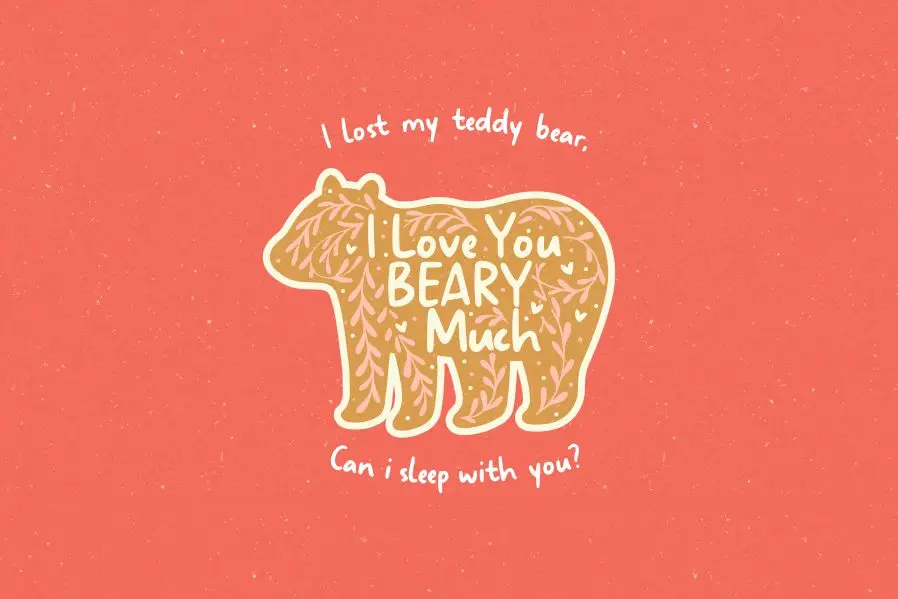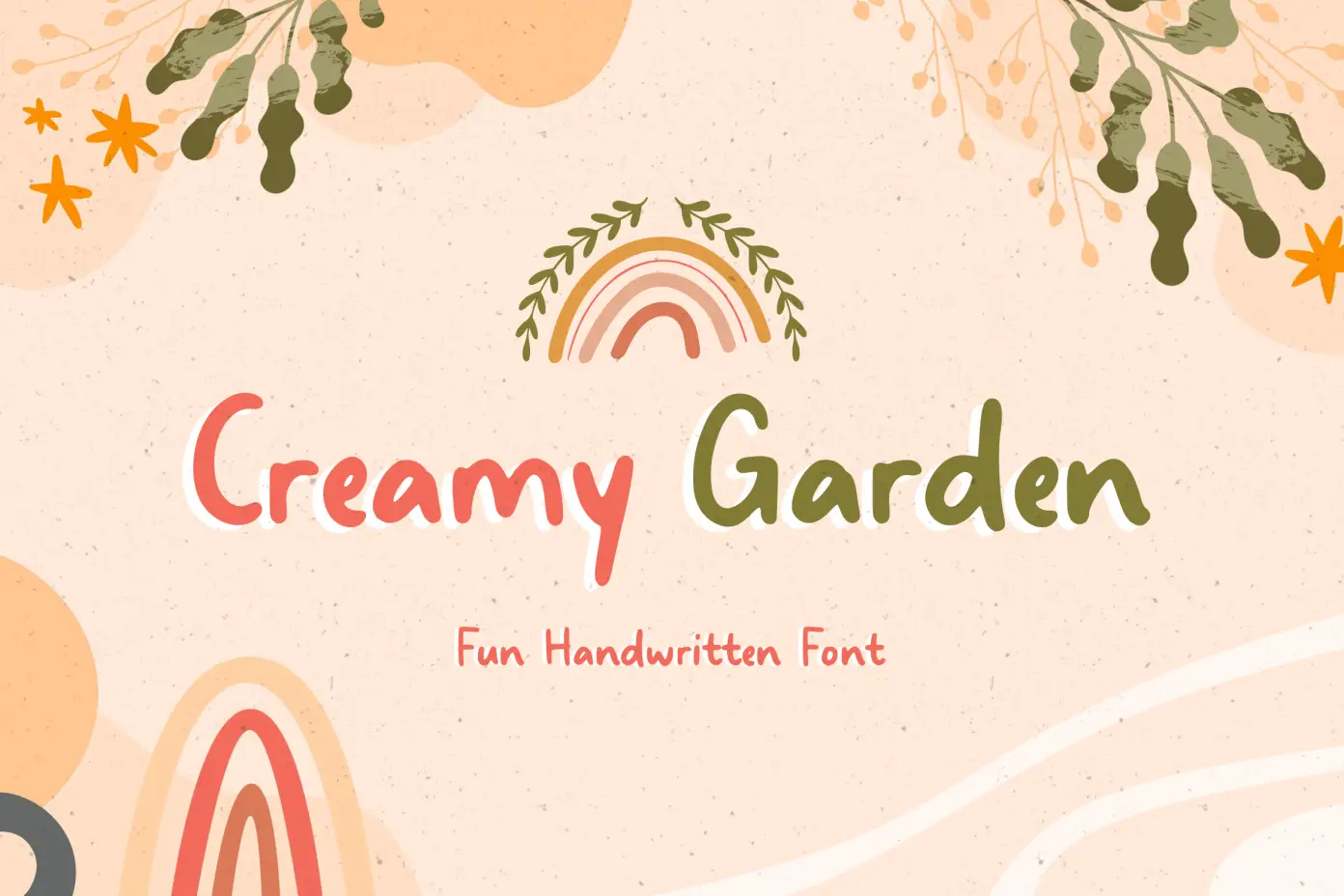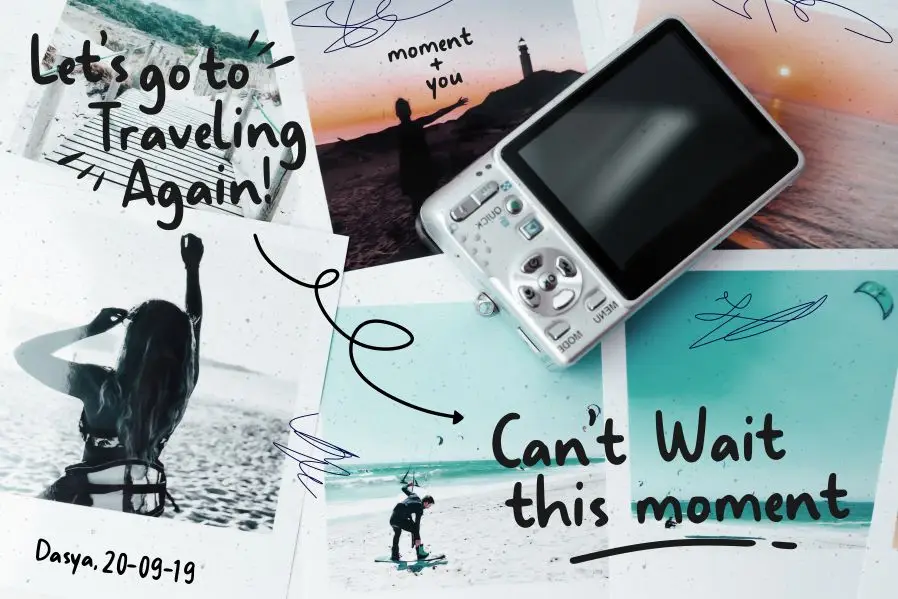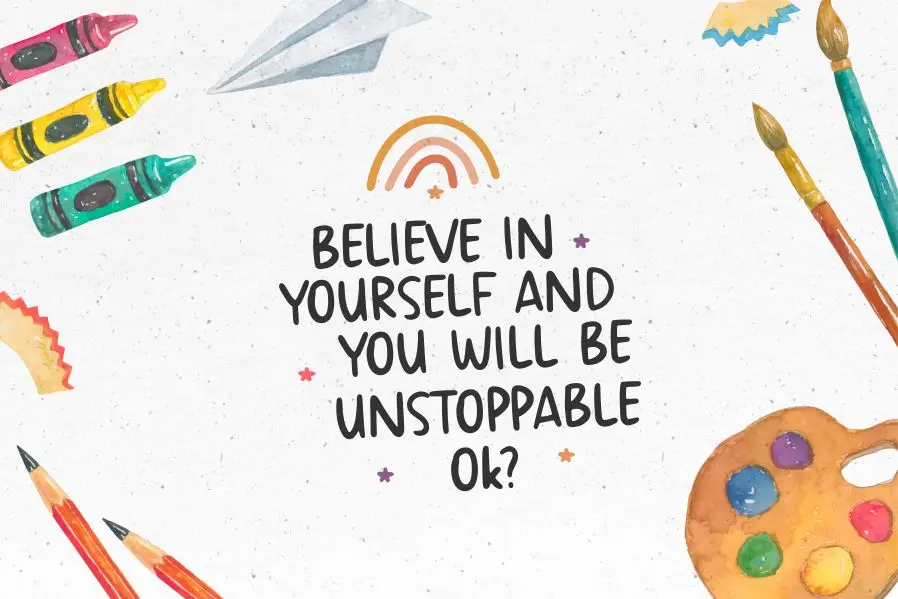
Creamy Garden Handwritten Font
The Creamy Garden Handwritten Font is a beautifully crafted typeface that brings a personal touch to your design projects. With its elegant curves and fluid strokes, this font is perfect for creating a warm and inviting atmosphere in your branding, logos, and print materials.
• Styles: Handwritten
• Weights: Regular
• Ideal for branding and logo design.
• Great for invitations, greeting cards, and other print materials.
• Perfect for web design to add a personal flair.